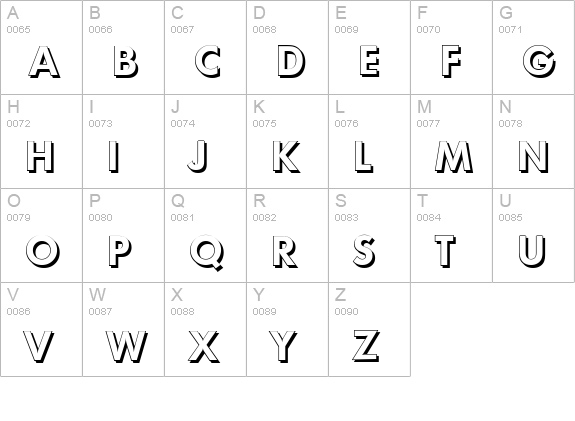
LimerickShadow-Bold is a strong, high-contrast variant in the LimerickShadow typeface family \xE2\x80\x94 well suited to headlines, attention-grabbing titles, and strong calls-to-action.
LimerickShadow-Bold is a striking and bold font that exudes a sense of strength and sophistication. Its clean lines and distinctive shadow effect make it perfect for headlines, titles, and other display purposes. This font is sure to make a statement and grab the attention of your audience. The best part about LimerickShadow-Bold is that it is available for free download at FontsMarket.com. You can easily access this stunning font and enhance your designs with its unique style. Whether you're working on a poster, logo, or any other creative project, LimerickShadow-Bold is a fantastic choice to add a touch of elegance and flair. Download it today and elevate your designs to the next level!